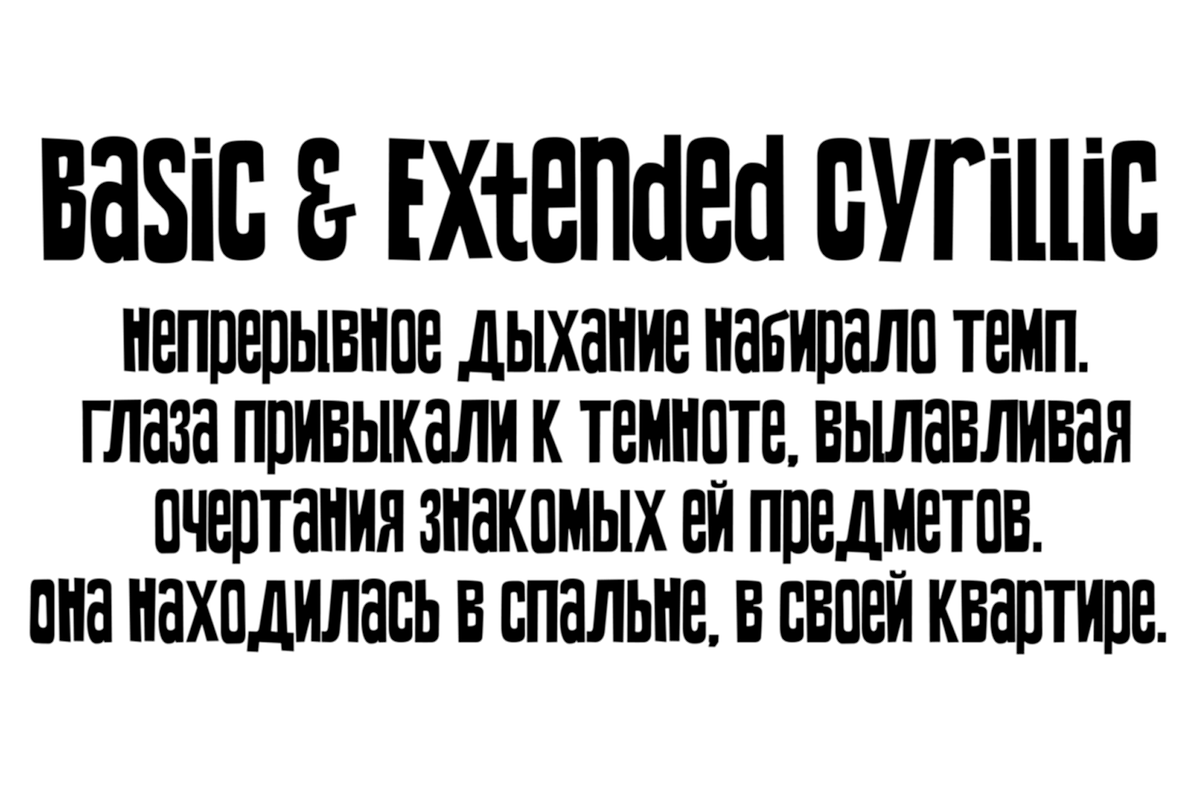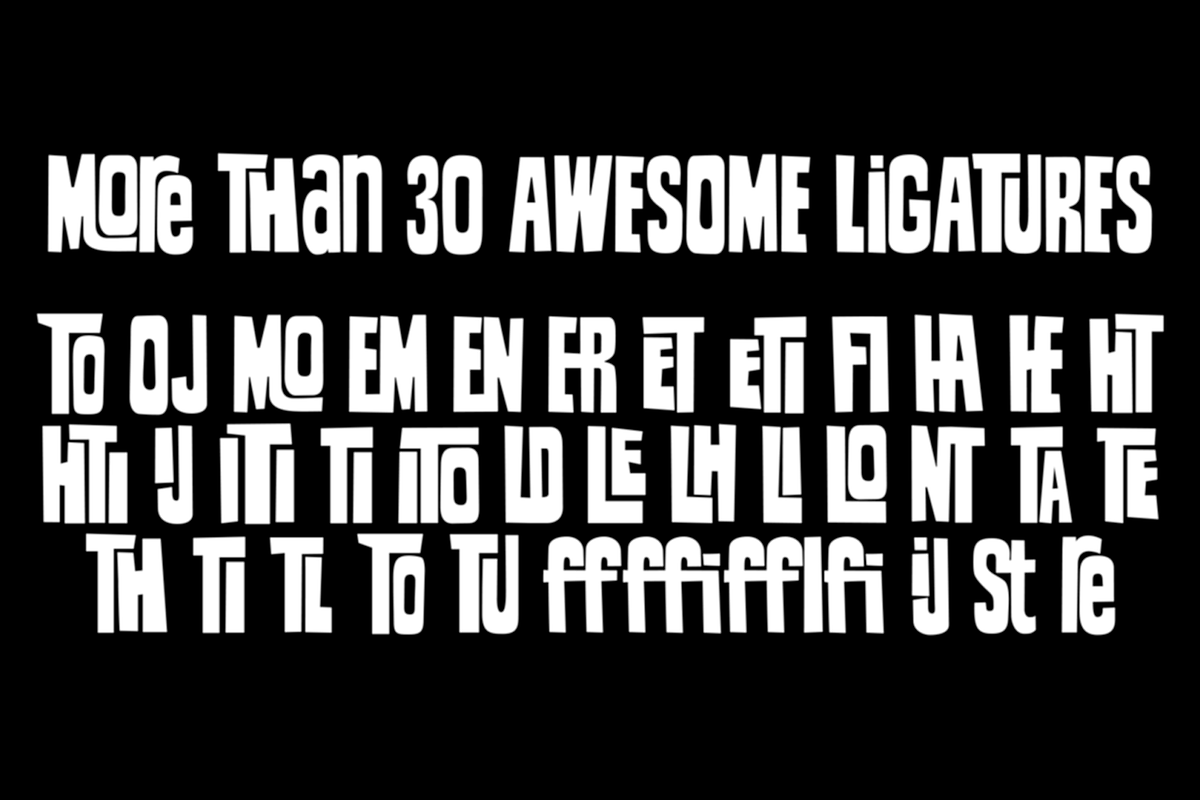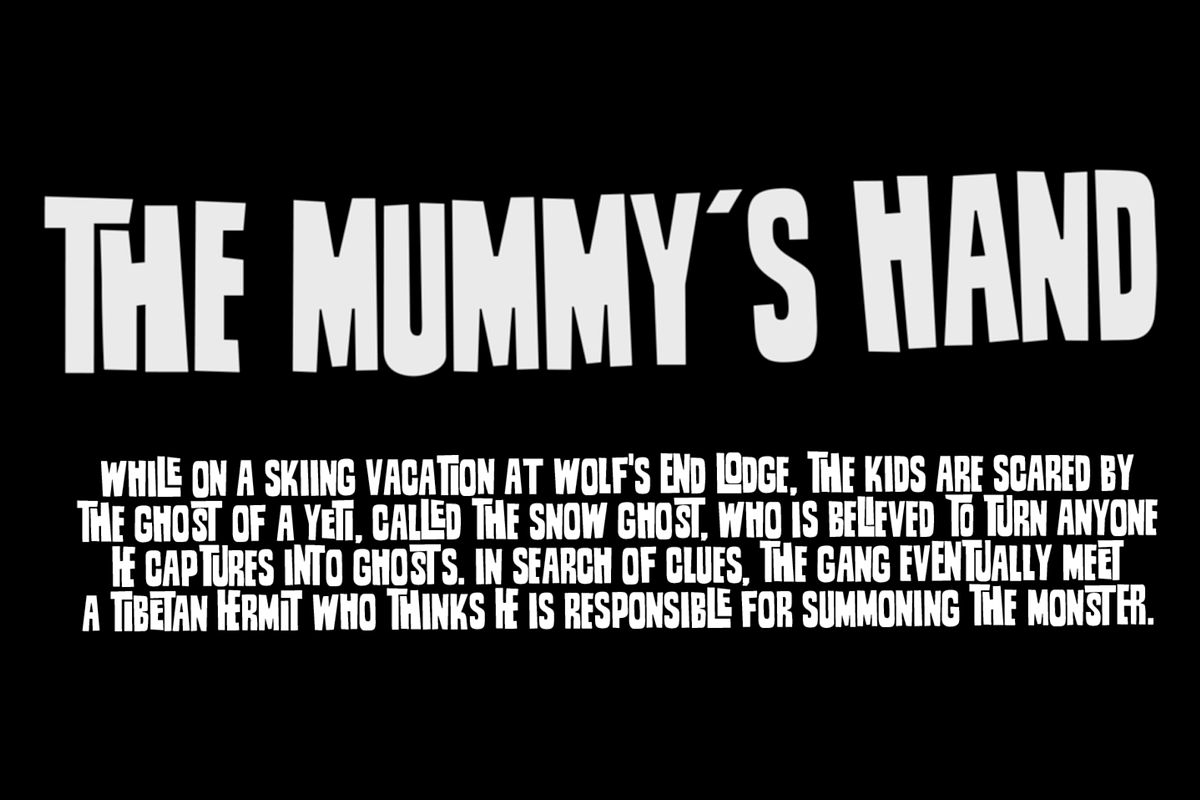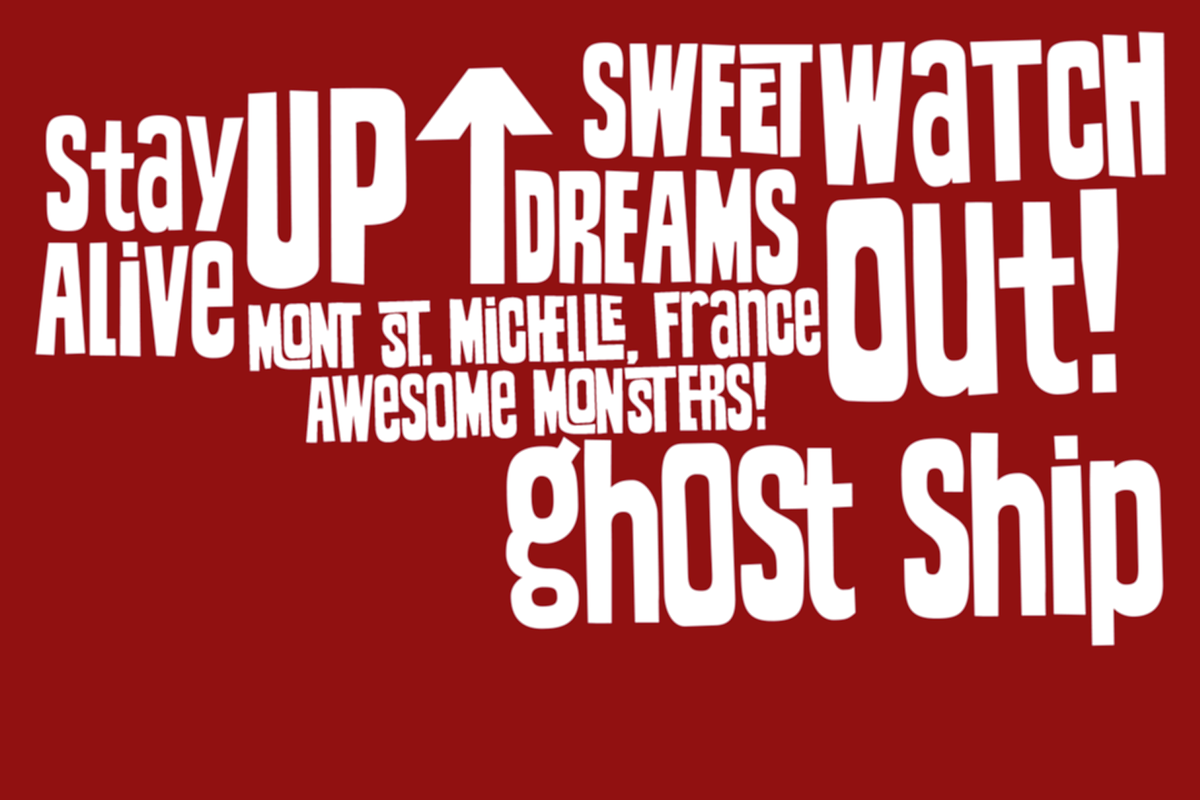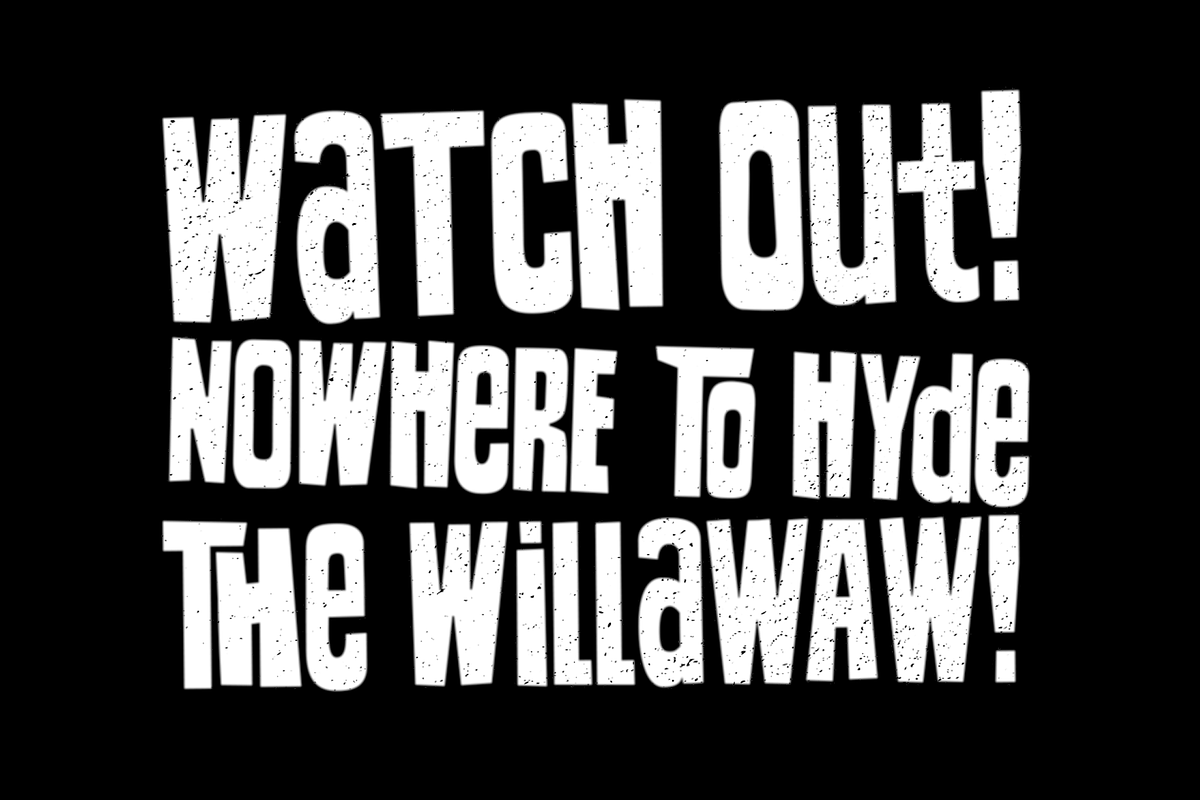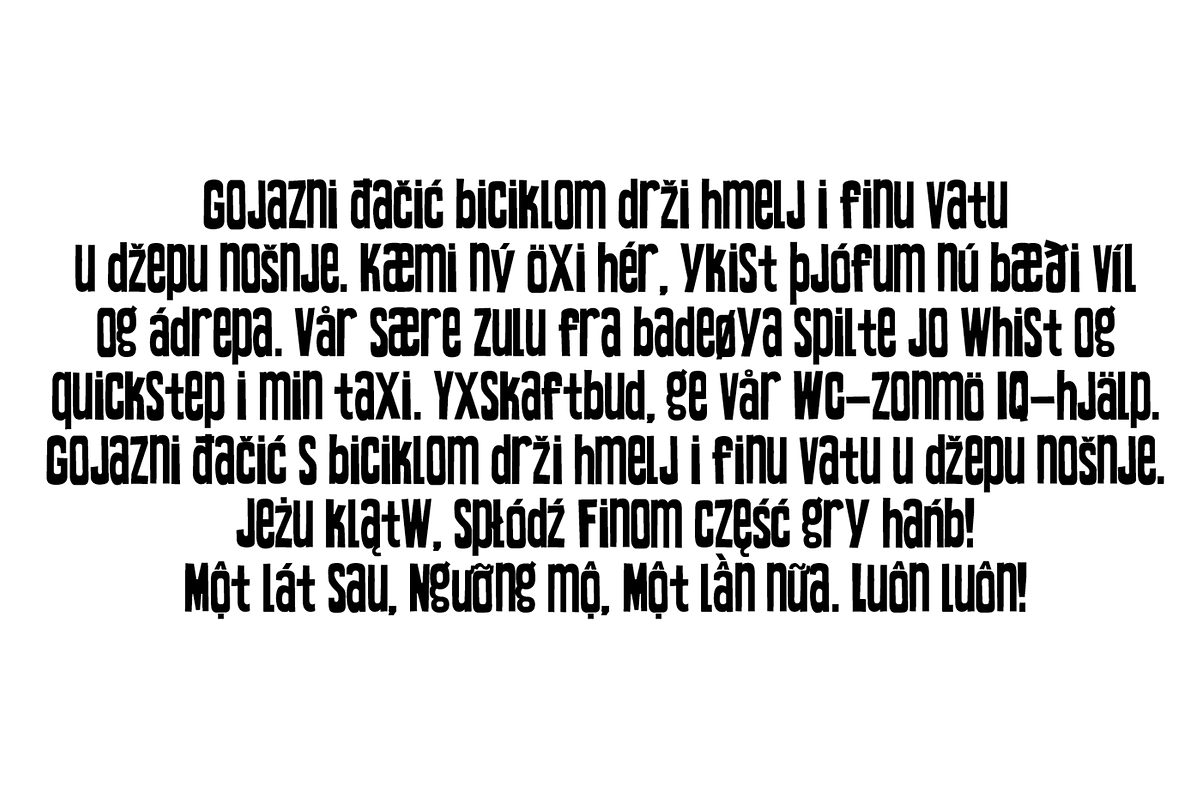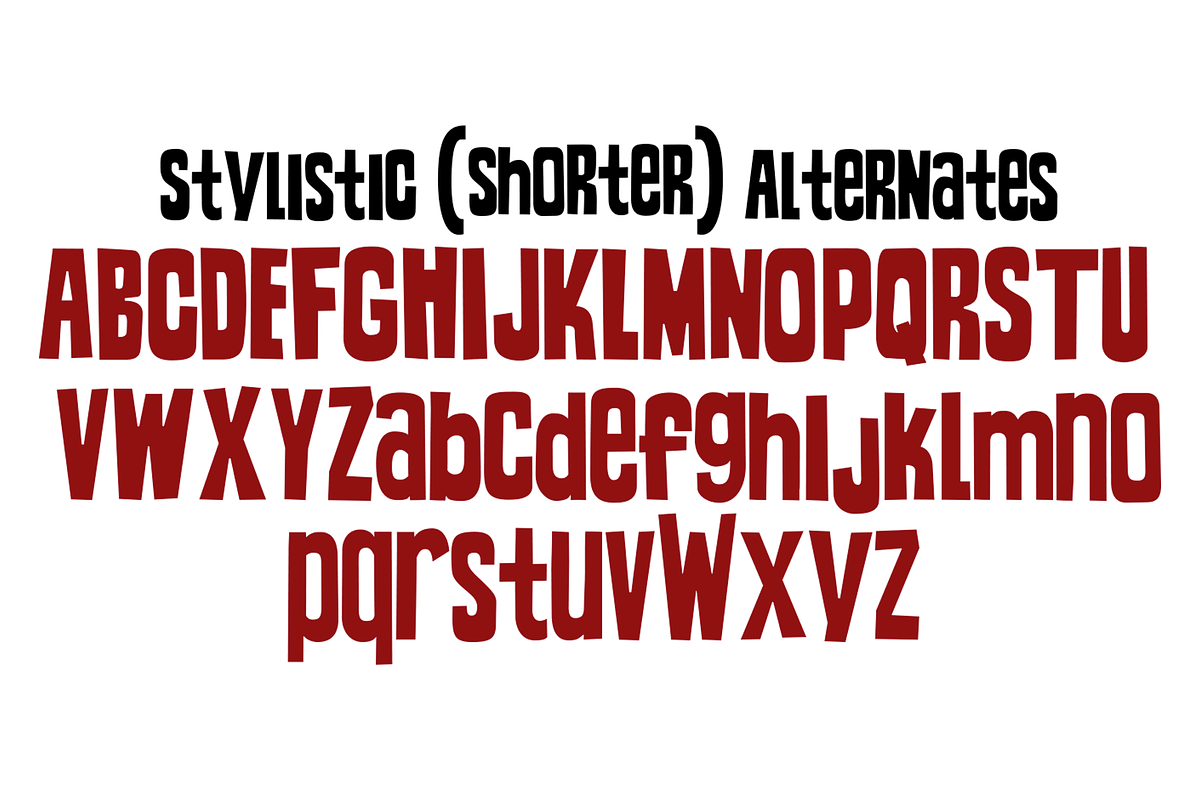
TOMO Zomba PRO
ZOMBA PRO! means we added Cyrillic and more latin languages. Zomba It's a retro-horror typeface that speak for itself. Ideal for big and strong messages. Kids gonna love it. Carefully hand crafted includes almost all latin languages and cyrillic!
- Carefully hand crafted includes almost all latin languages and cyrillic!